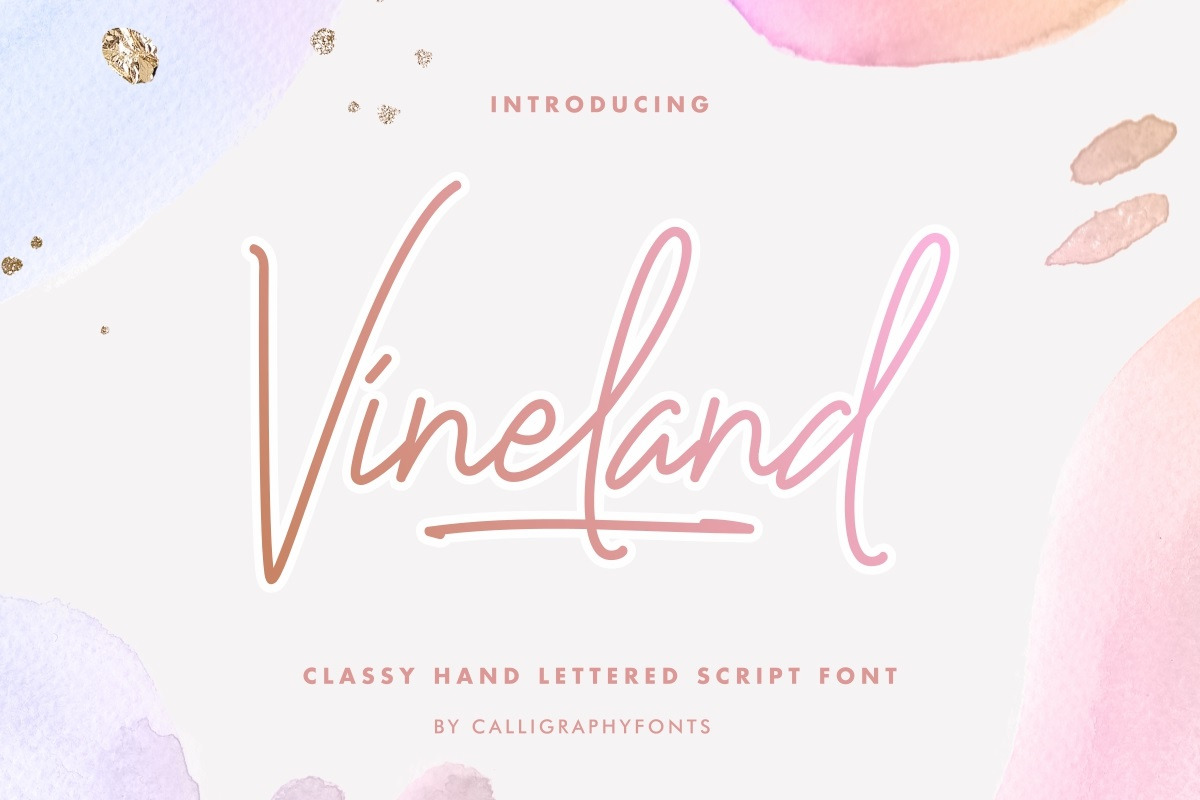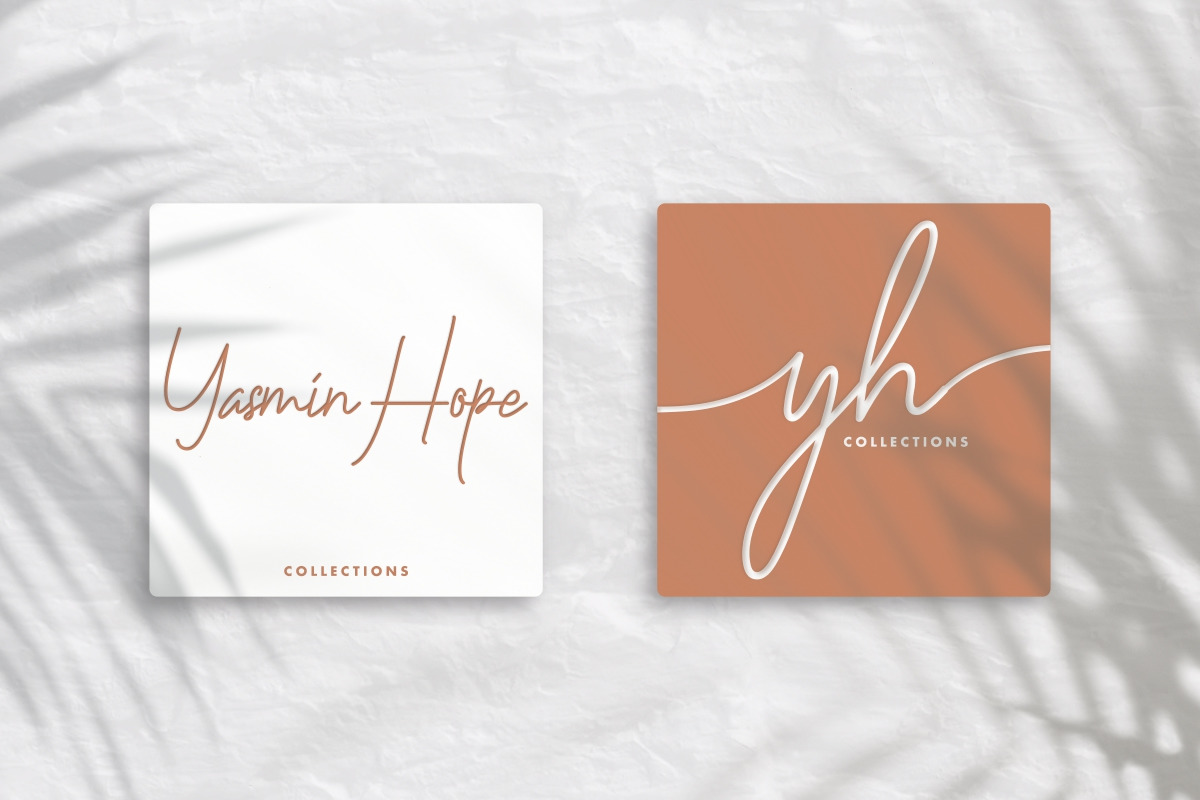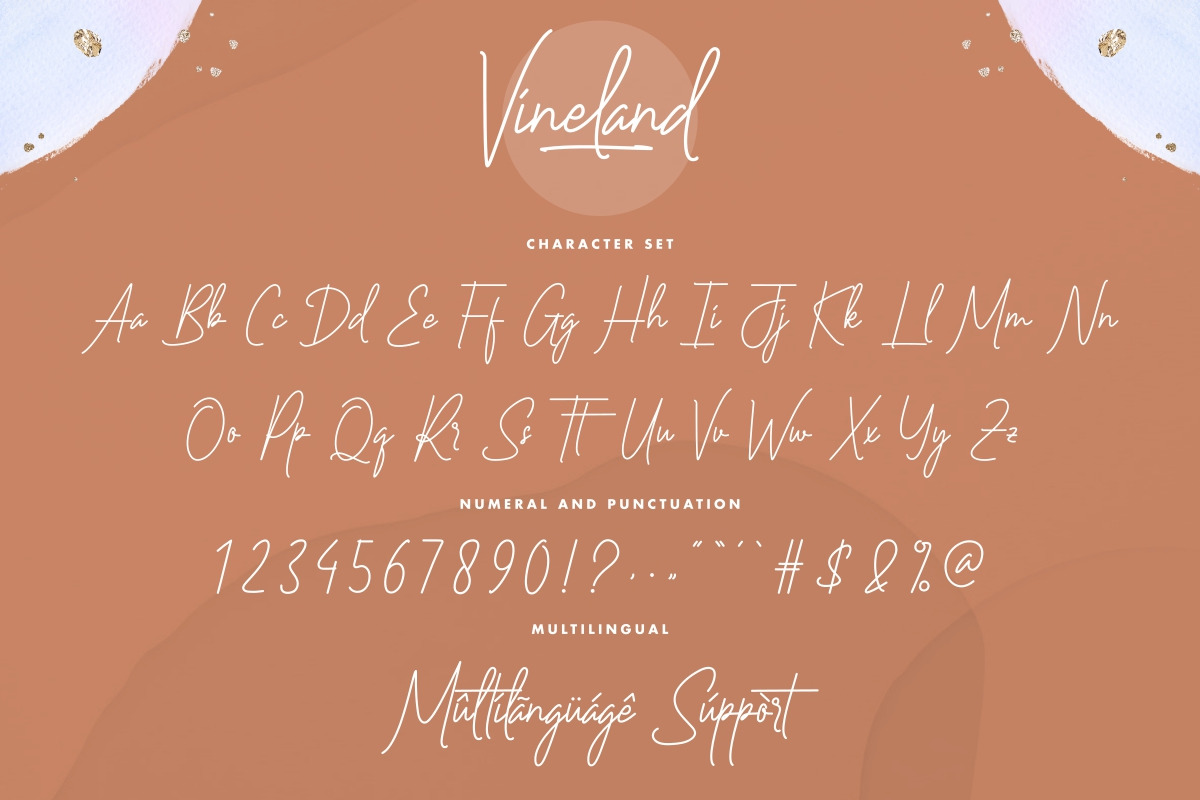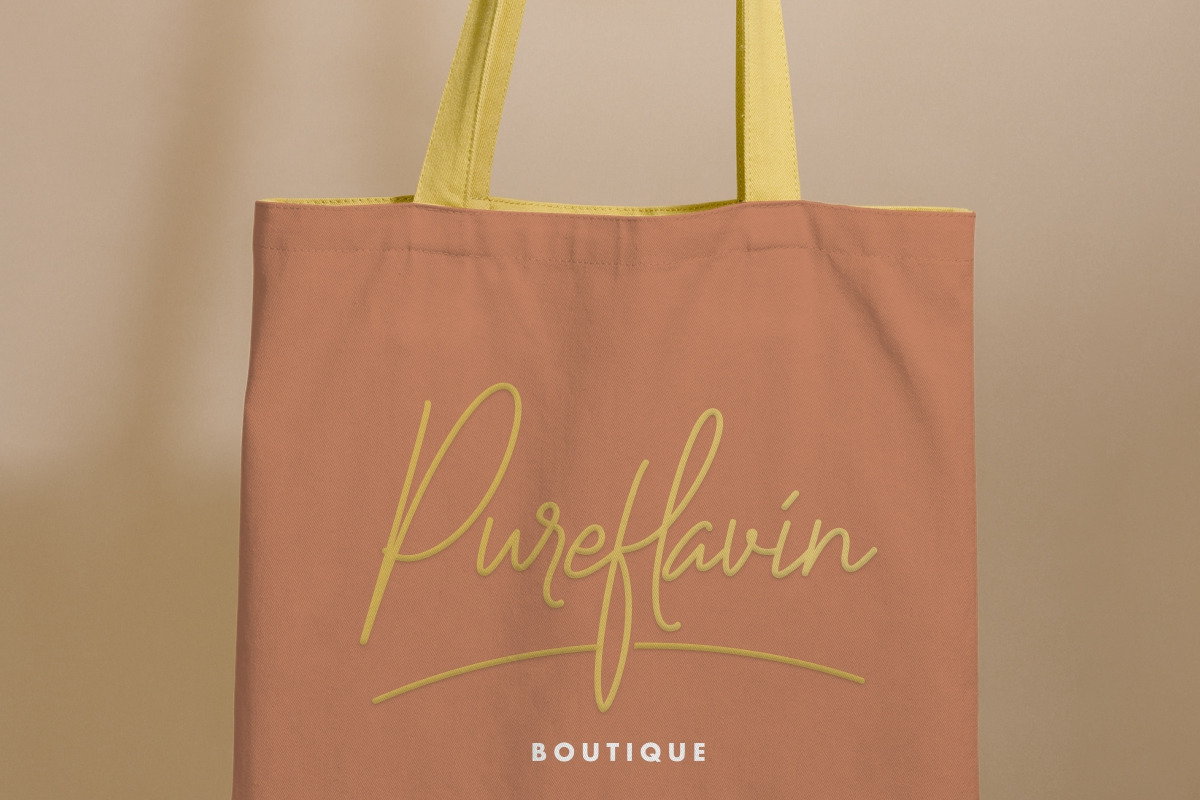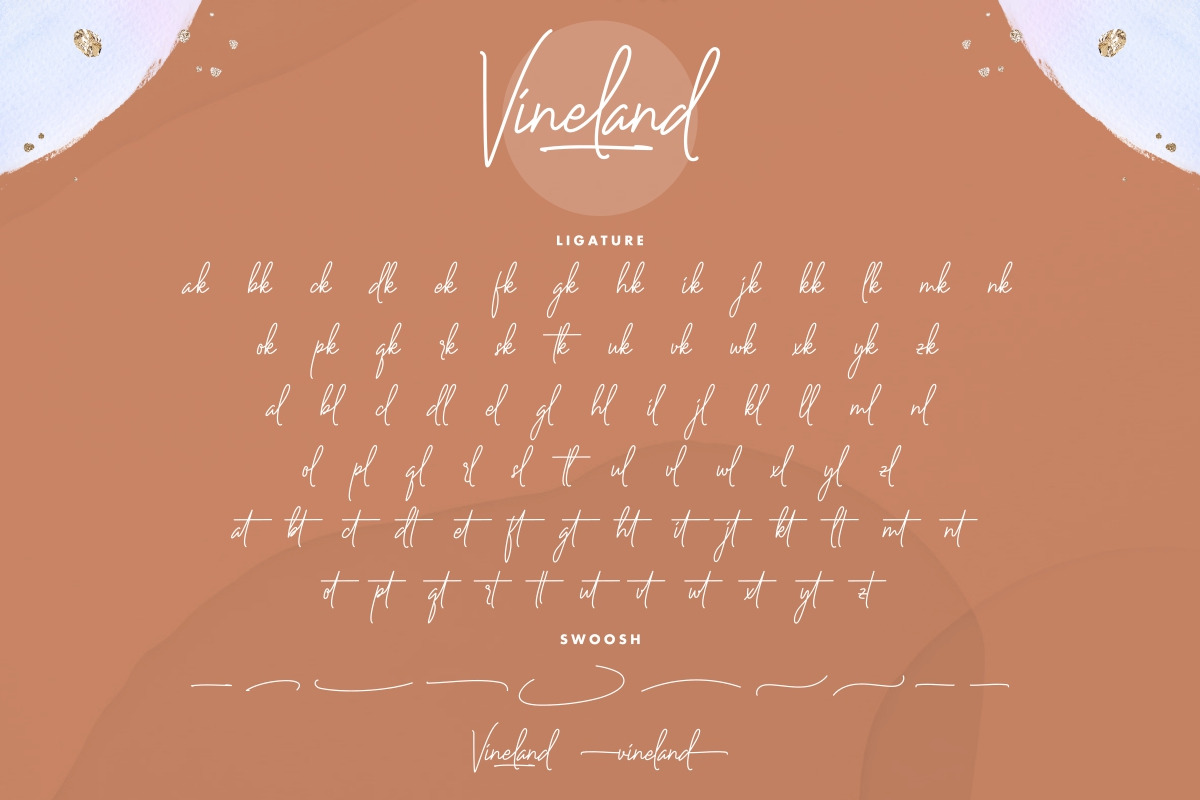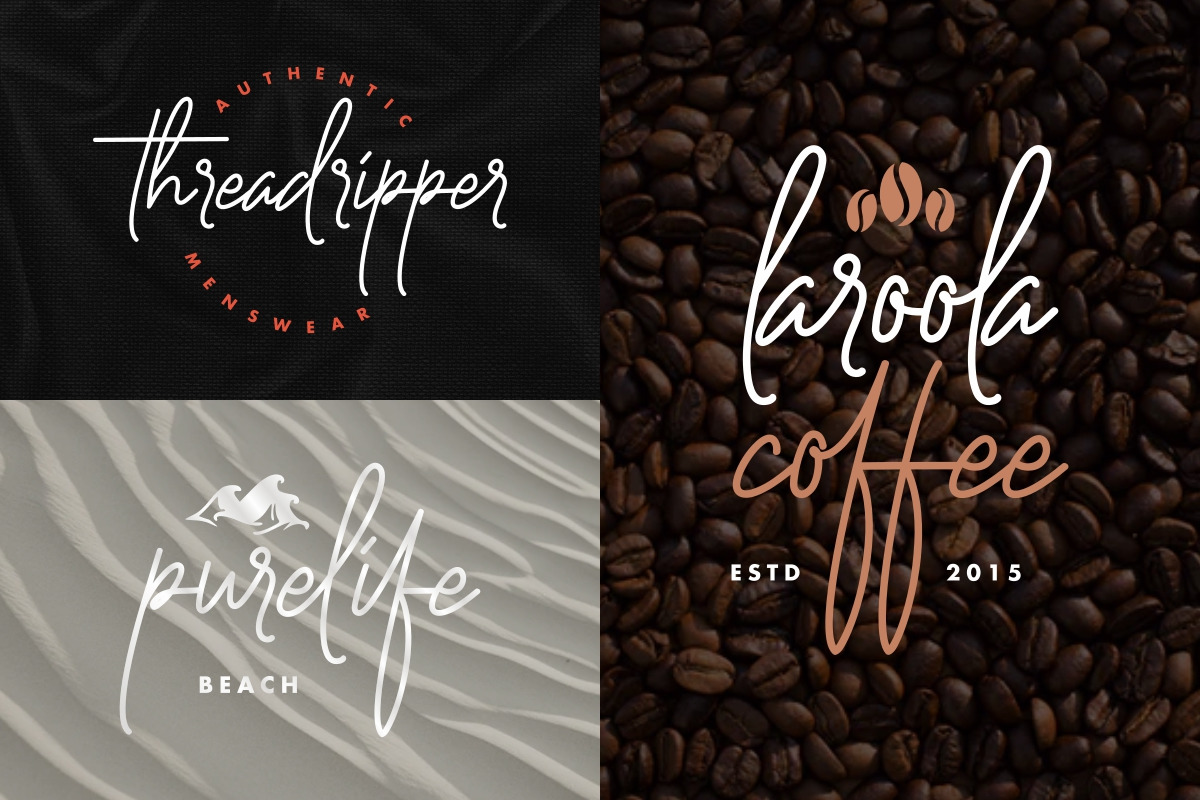
Vineland Script Font
Vineland is a Font with an exclusive unique style : signature . The style of this font are minimalist, signature, modern, elegant, luxury, glamour, classic and simple lettering.